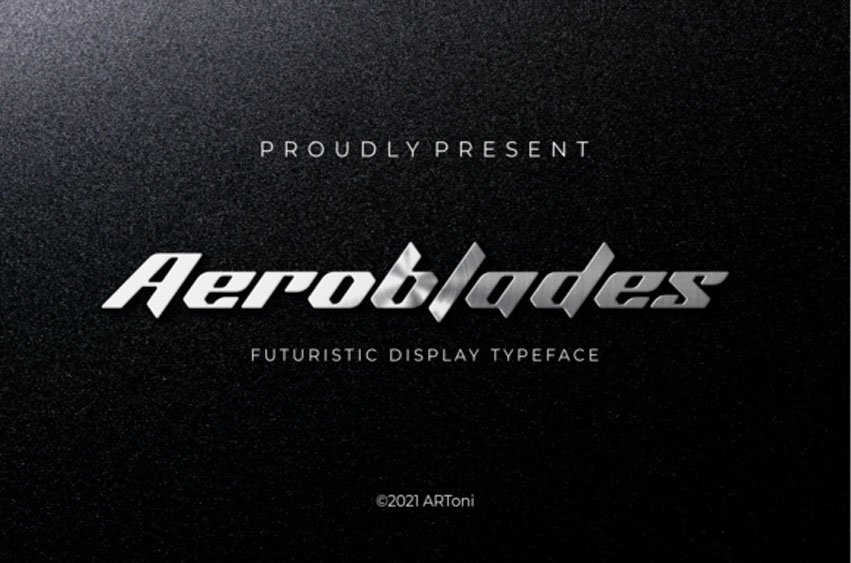
Aeroblades Font
Aeroblades Font is a futuristic display typeface.
This beautiful and professional font is suitable for posters, headlines, block letters, subheadings, logo designs, branding and so much more.